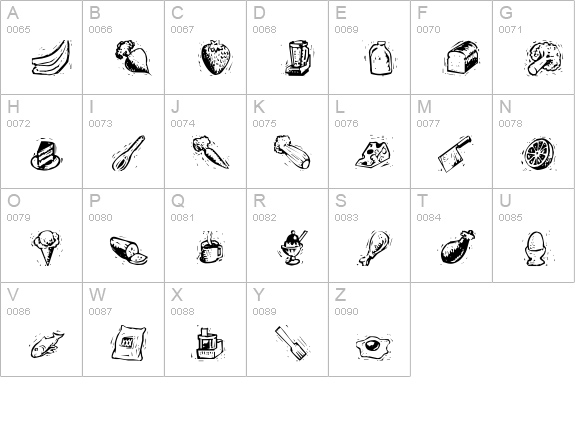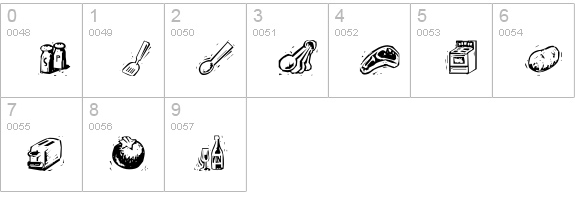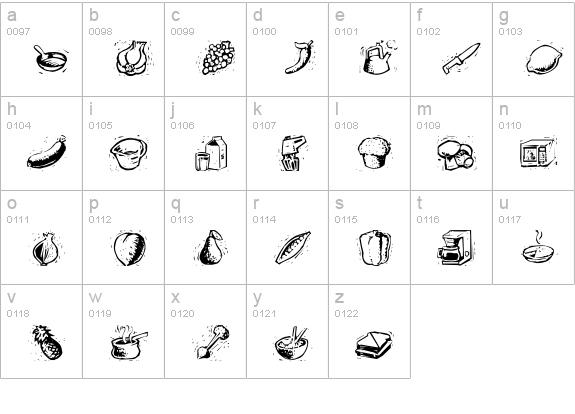
Introducing Counterscraps font - a unique and eye-catching typeface that blends modern design with a touch of vintage charm. This font features intricate details and playful elements that make it perfect for adding a fun and whimsical touch to your projects. Counterscraps font is freely available to download at FontsMarket.com, making it accessible to all designers and creatives looking to add a creative flair to their work. With its versatile use and captivating appearance, Counterscraps font is sure to make a lasting impression on any design project. Let your creativity shine with this delightful and free-spirited font!